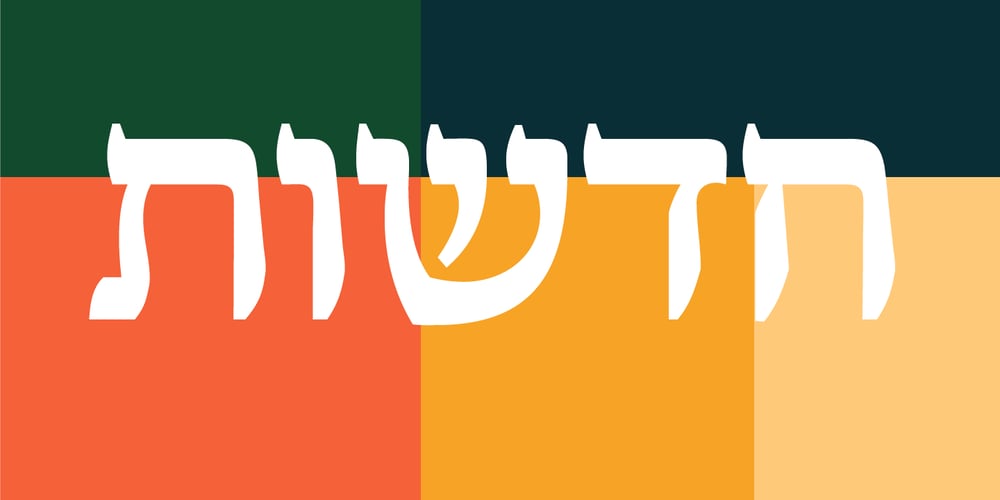
Parshanut MF
Parshanut MF font
Parshanut MF Font Family was designed by Eliyahu Fried and published by Masterfont. Parshanut MF contains 1 styles and family package options. A modern touch to a Biblical oriented font. High legibility as text font.